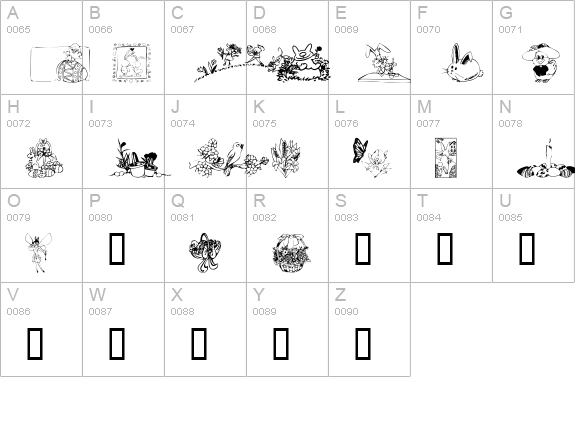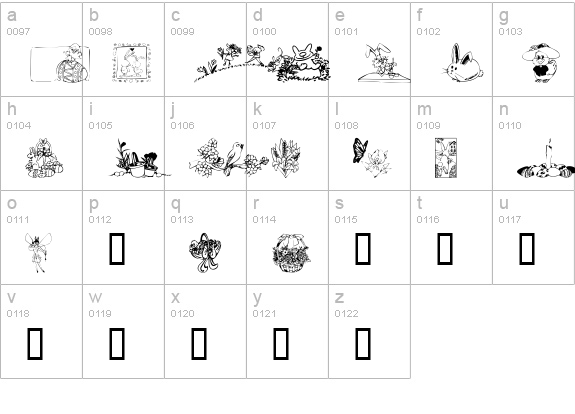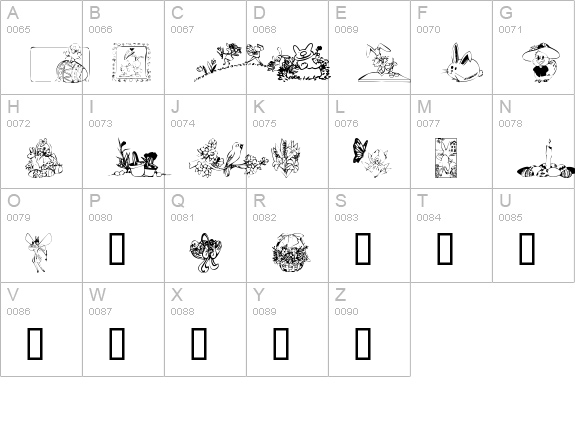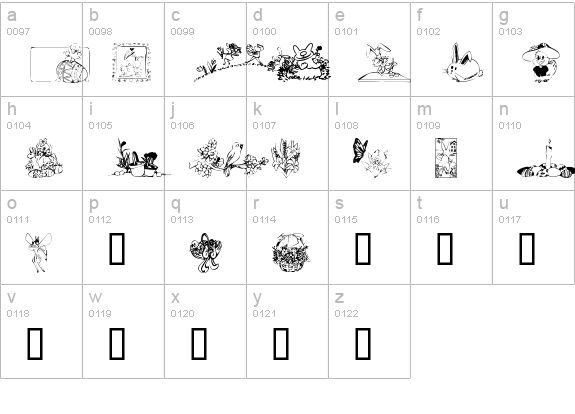
KR Easter 2002 is a whimsical and playful font perfect for adding a touch of charm to your designs. This delightful font features unique Easter-themed elements, making it ideal for festive projects or creative endeavors. With its fun and quirky style, KR Easter 2002 is sure to bring a smile to anyone's face. The best part? KR Easter 2002 is available for free download at FontsMarket.com! Simply visit the website to grab this delightful font and start incorporating its cheerful characters into your designs today. Don't miss out on the opportunity to add a touch of Easter magic to your projects with KR Easter 2002 - download it for free now!